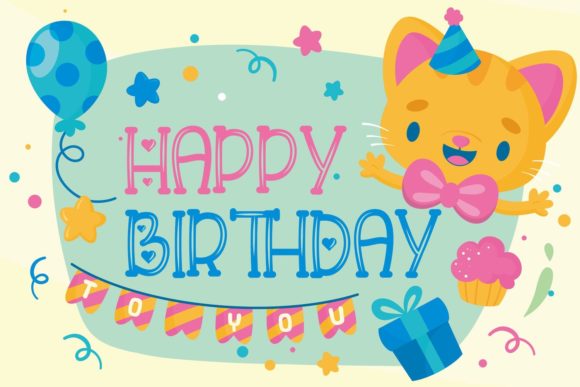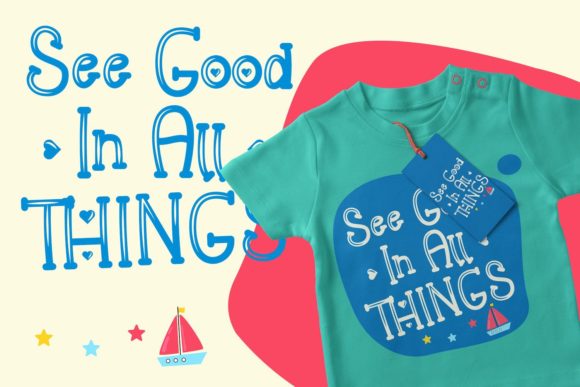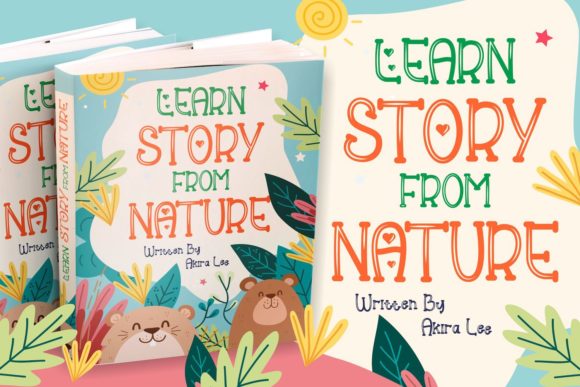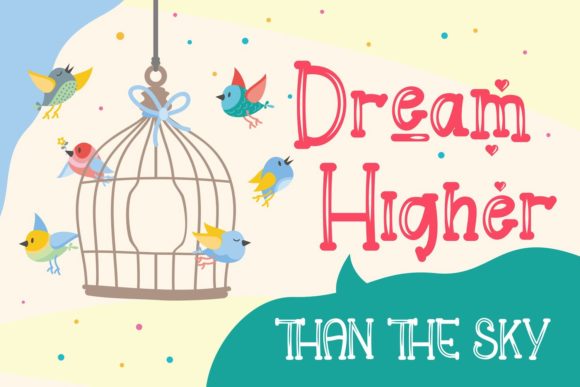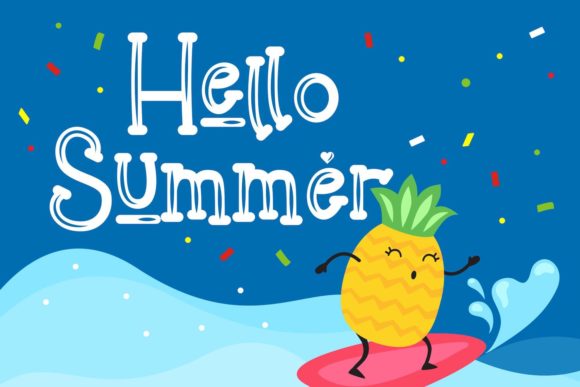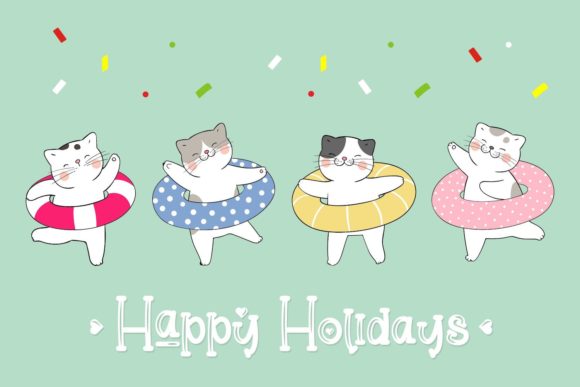
Introduction to Helloo Kidos Font Font
Fonts play a crucial role in design, and the Helloo Kidos Font font is a typeface that brings both character and versatility to any project. Whether you’re working on a branding project, a website, or a print design, the Helloo Kidos Font font offers a unique style that can elevate your work.
| 📌 Font Name | Helloo Kidos Font |
| 👤 Author | StringLabs |
Helloo Kidos is a cute and quirky display font.
It will add a joyful vibe to your creations Employ this beautiful font to each of your ideas and notice how it makes them stand out.
Key Features of Helloo Kidos Font Font
Why Choose Helloo Kidos Font Font?
The Helloo Kidos Font font is more than just a typeface – it’s a design tool that helps you communicate your message with style and clarity. Its unique character set and versatile design make it suitable for a wide range of applications, from elegant invitations to bold headlines.
With its carefully crafted letterforms and balanced proportions, the Helloo Kidos Font font ensures readability and visual appeal across all mediums.
What makes Helloo Kidos Font font special?
The Helloo Kidos Font font stands out with its unique design, exceptional readability, and versatility across various design applications.